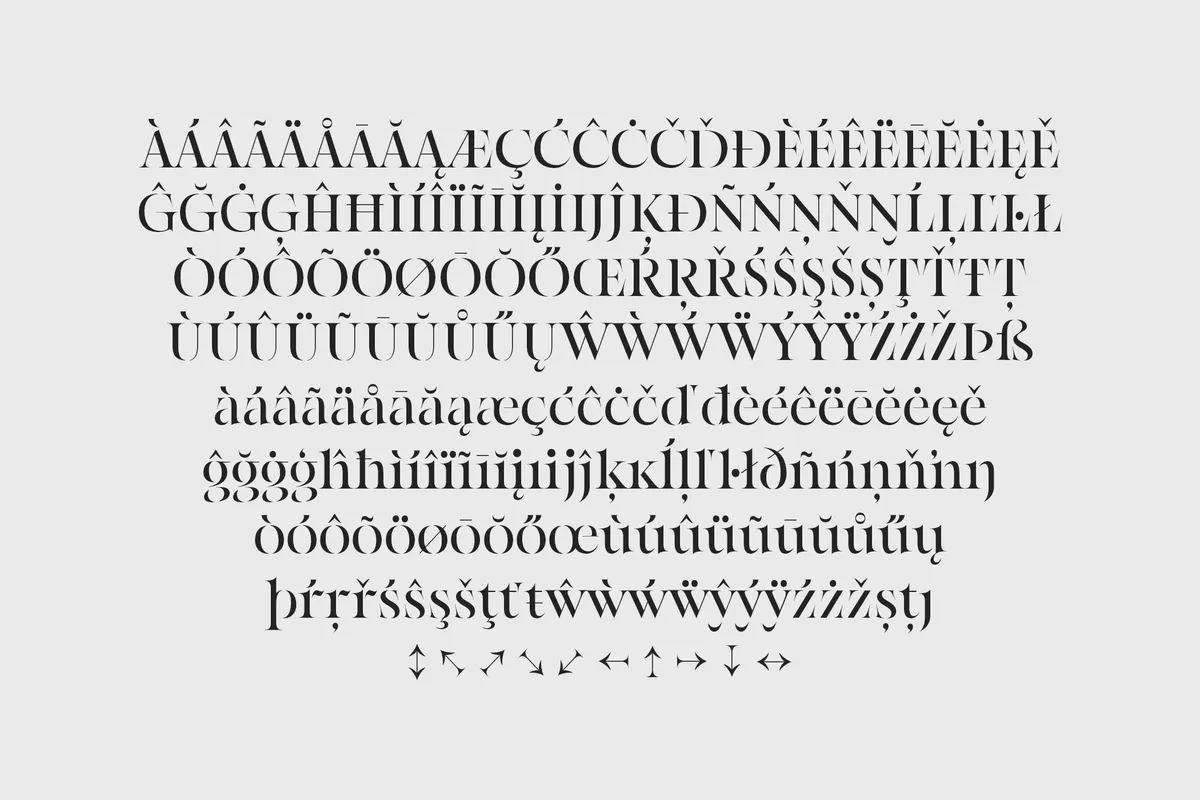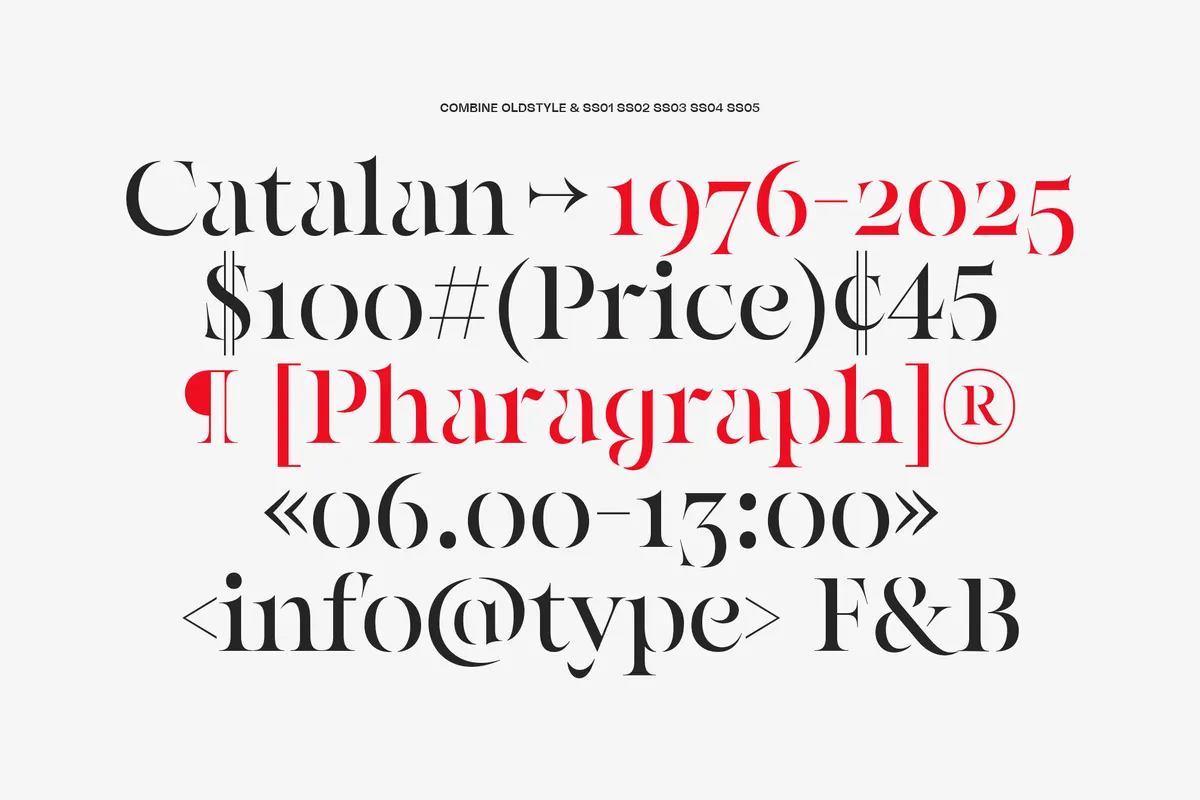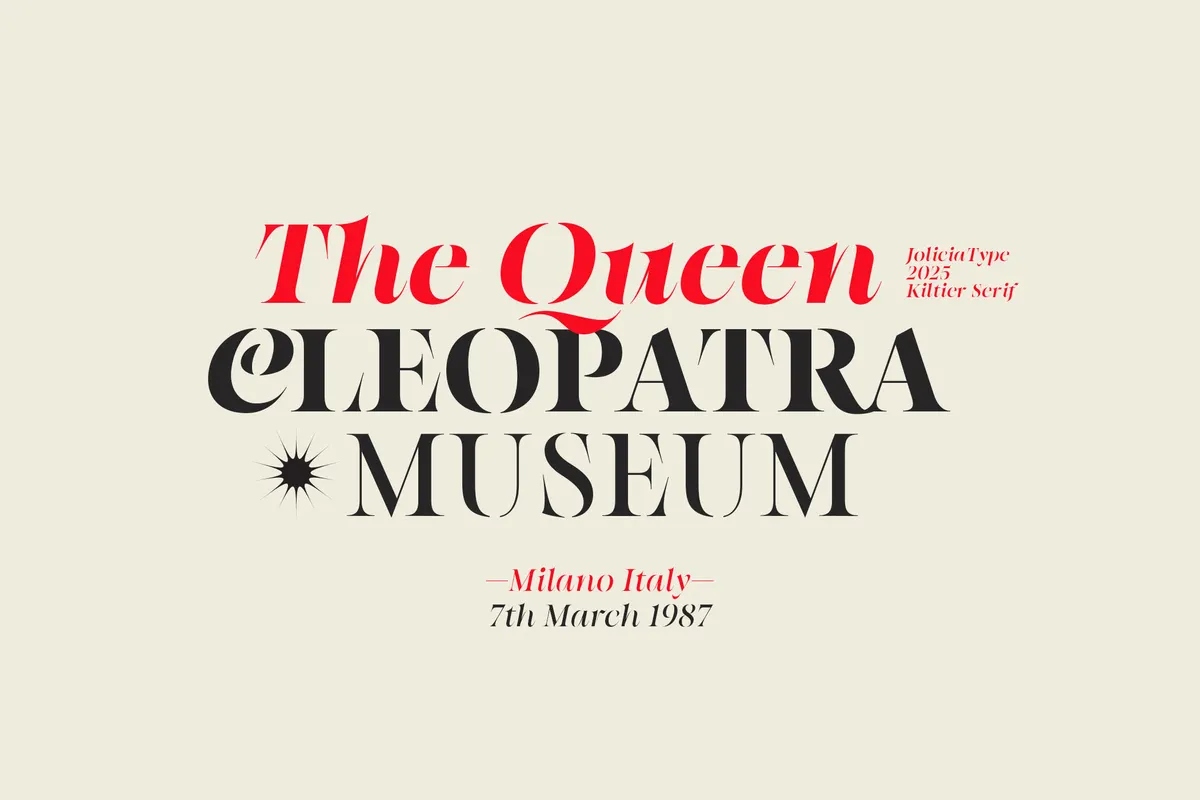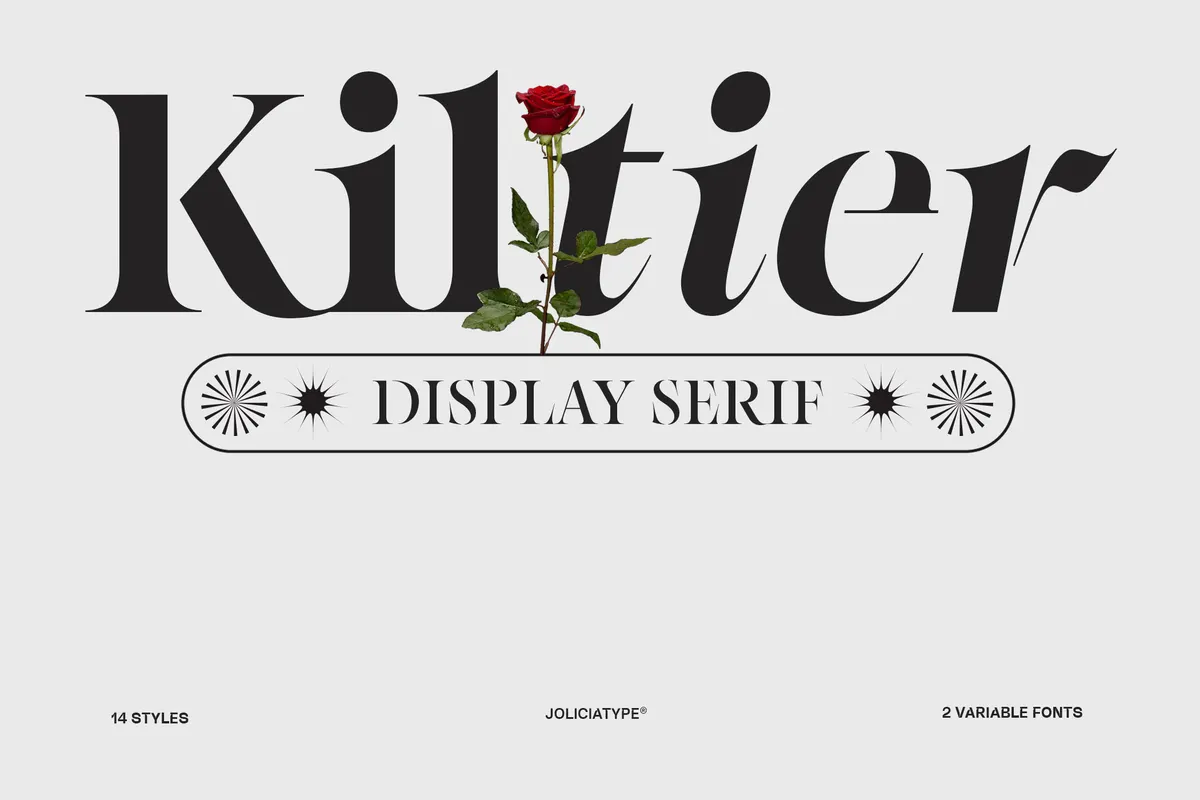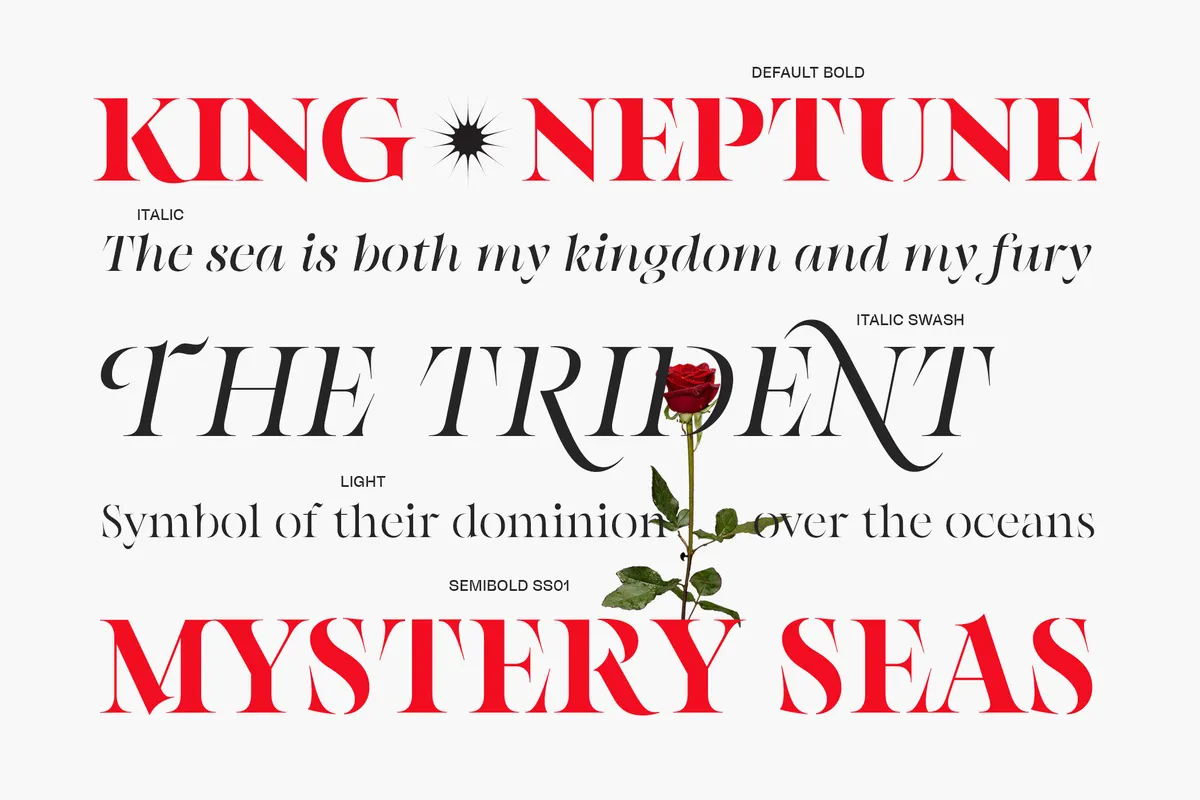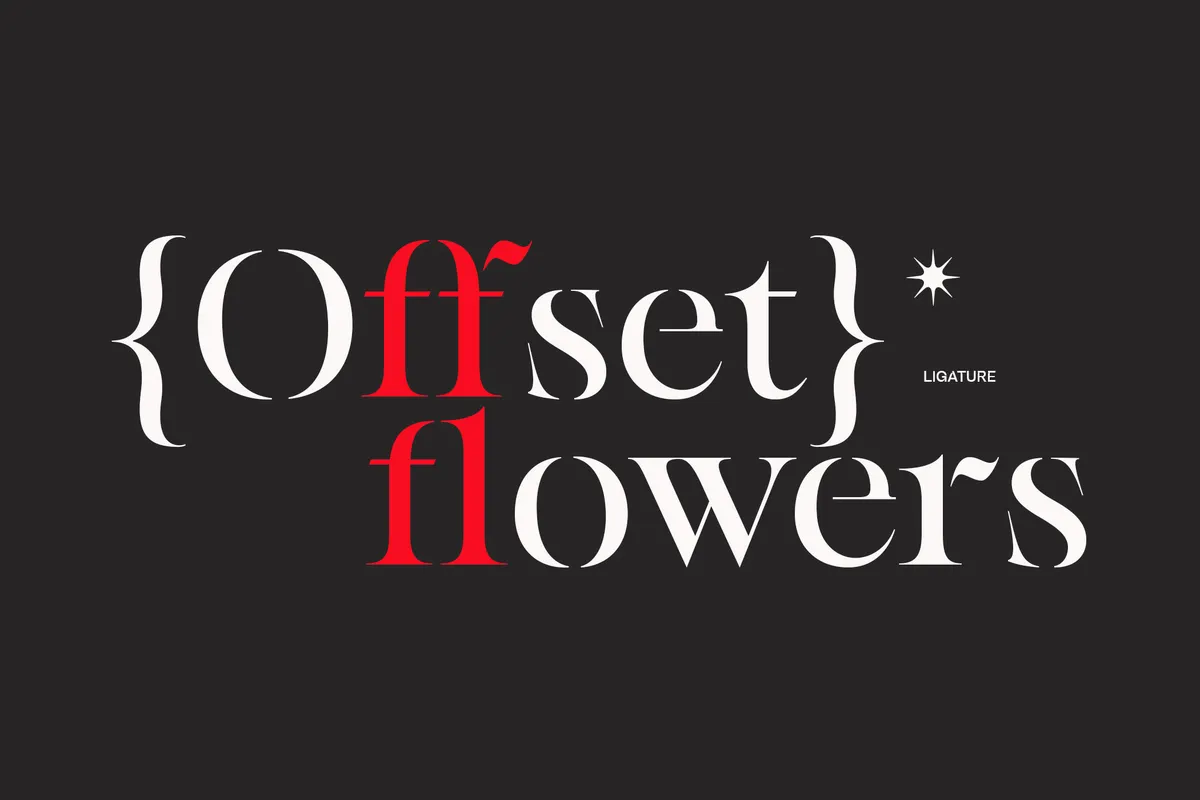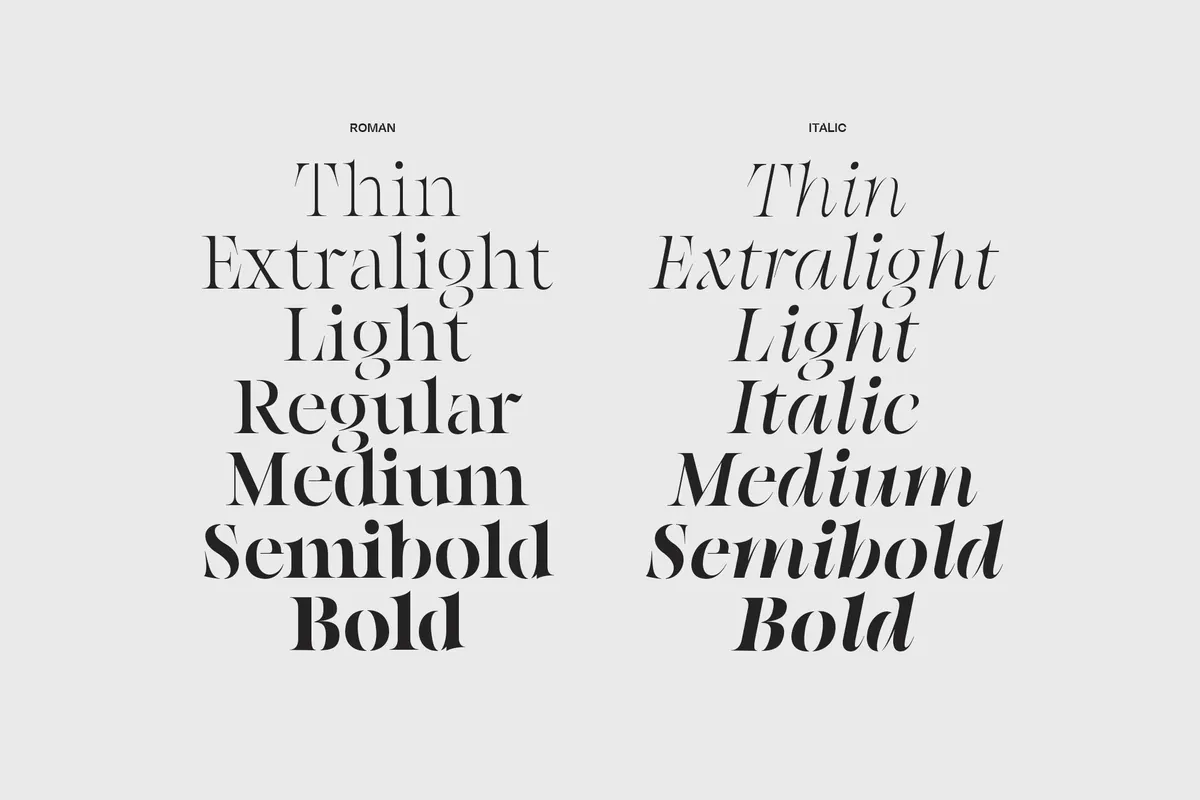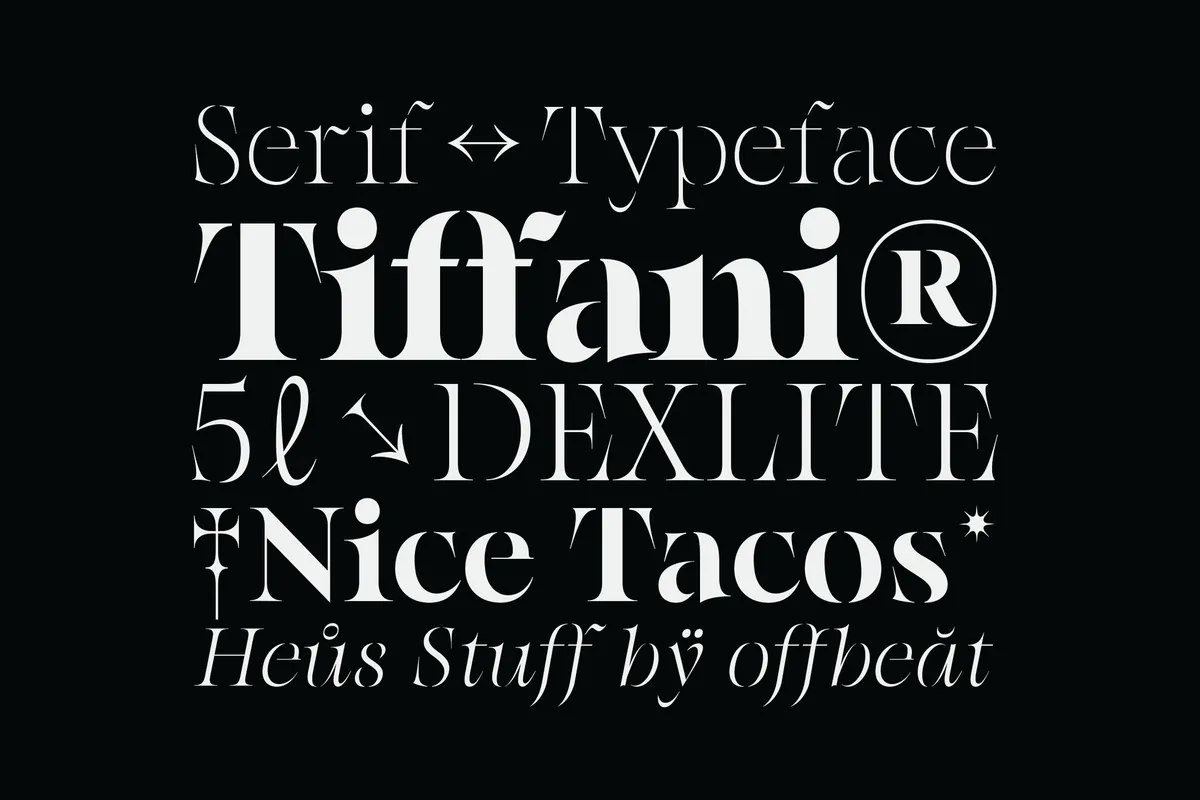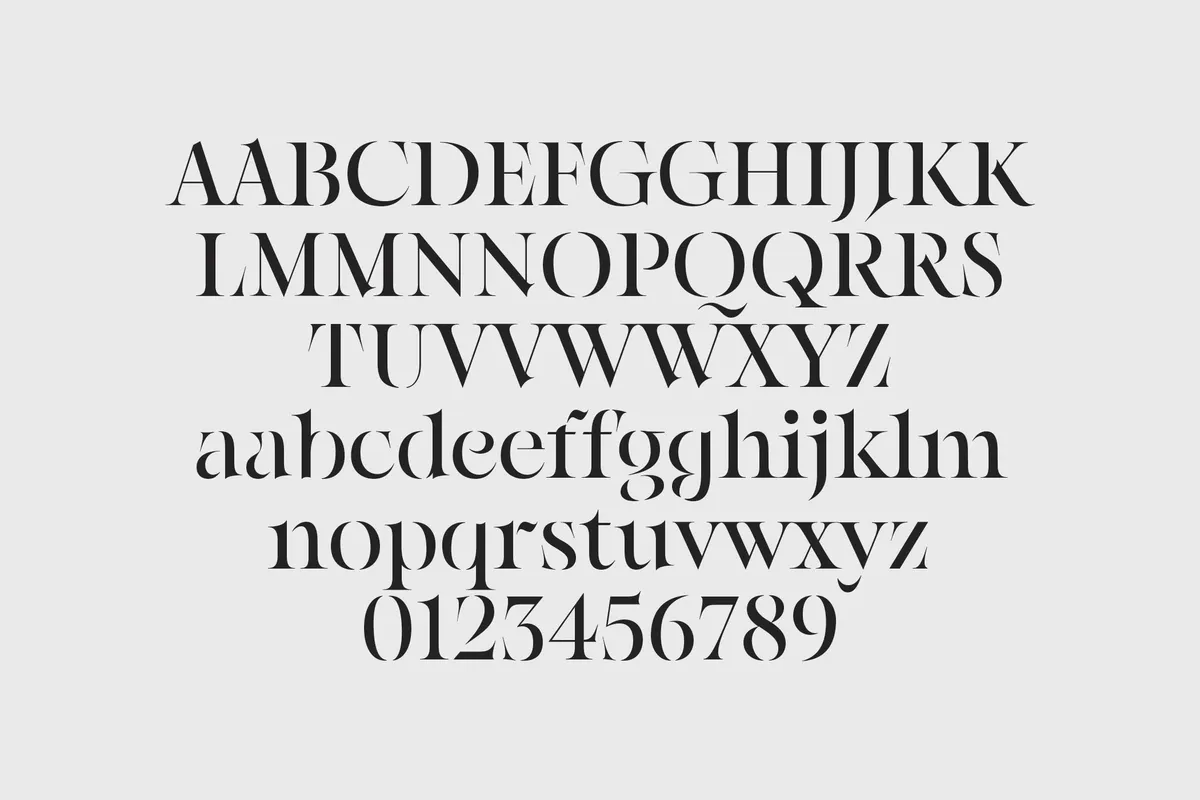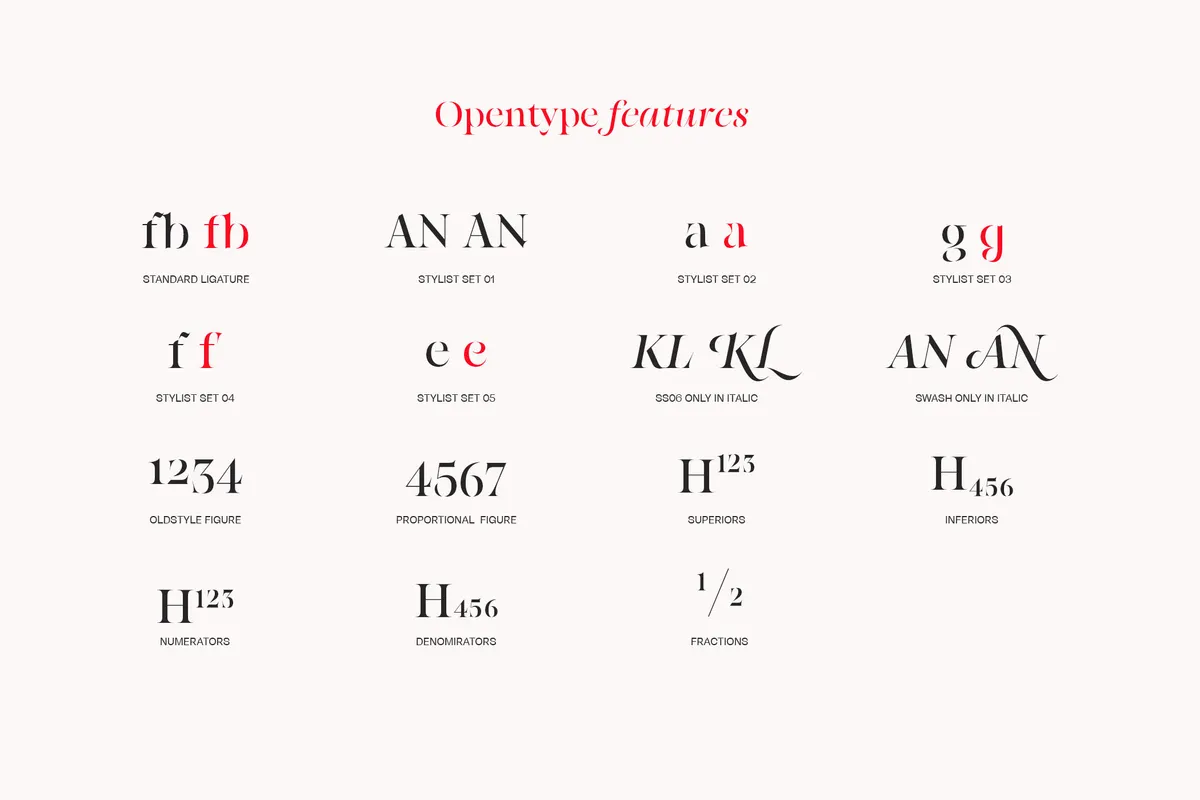
Kiltier - High Contrast Serif Font
Kiltier builds on a strict high-contrast skeleton: hairline-thin curves swing into thick, blunt stems. Ball terminals hold the weight at the ends of strokes. Fourteen styles cover seven weights in Roman and Italic, from a hairline Thin through a dense Bold, and two variable fonts carry the full range in just two files, one for Roman and one for Italic.
The italic carries a bonus layer on top of that: a sixth stylistic set and a full swash alternate run through the italic only, alongside five stylistic sets shared with the Roman. Use it for branding, editorial headlines, packaging, poster and invitation design, logotypes, and luxury or fashion layouts.
- 14 styles: Thin, ExtraLight, Light, Regular, Medium, SemiBold, Bold, Roman and Italic;
- 2 variable fonts, one Roman, one Italic;
- Uppercase & lowercase;
- Numerals, punctuation & symbols;
- Ligatures, stylistic alternates, swash italics, superscript, subscript & tabular figures;